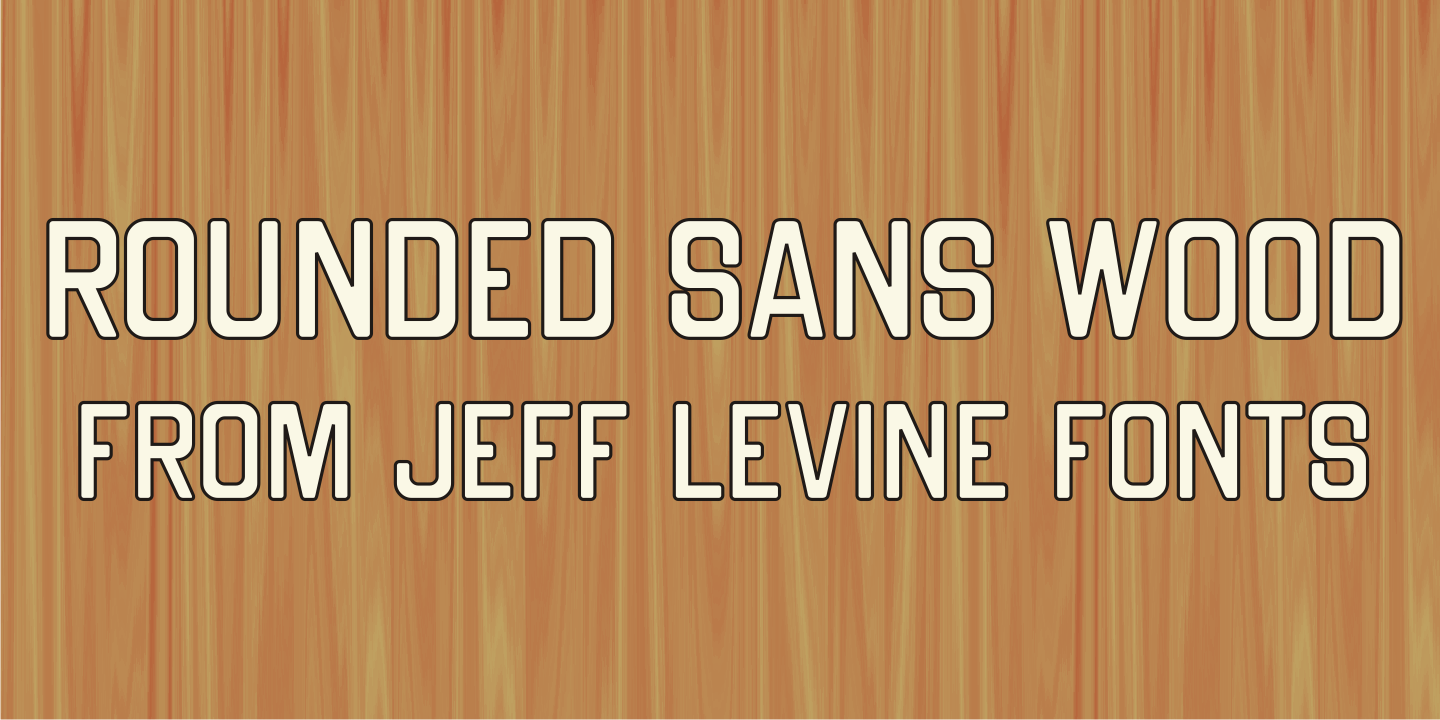
ROUNDED SANS WOOD JNL
Rounded Sans Wood JNL is a display sans and wood type font published by Jeff Levine Fonts.
Examples of a wood type alphabet for letterpress are the basis for Rounded Sans Wood JNL.
Examples of a wood type alphabet for letterpress are the basis for Rounded Sans Wood JNL. Clean and bold, the rounded ends give a softer, more informal look to any display copy.